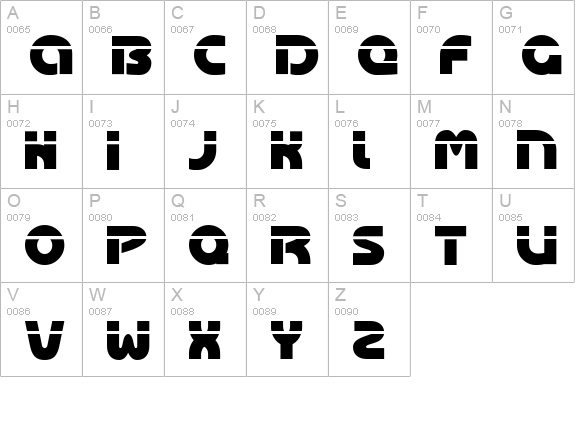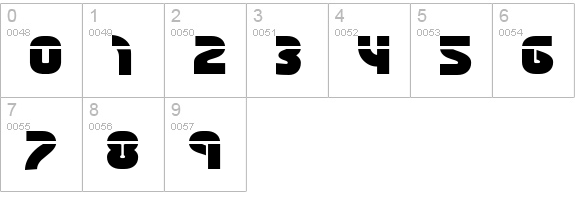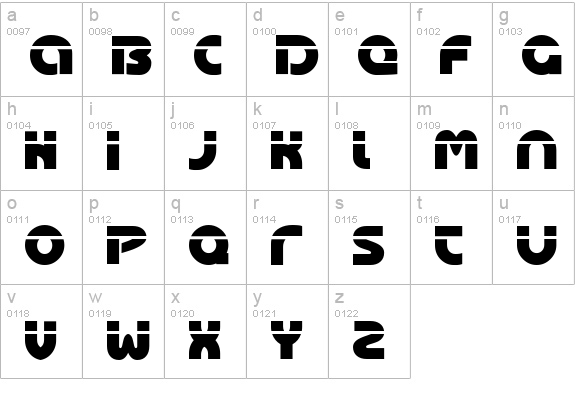
Oasis Font Details
The Oasis font is a modern and stylish typeface that exudes sophistication and elegance. Its sleek lines and contemporary design make it perfect for a wide range of projects, from branding to editorial design. With its versatile style, Oasis can effortlessly elevate any design and give it a touch of class. What's even better is that the Oasis font is completely free to download at FontsMarket.com. That's right, you can get your hands on this stunning font without spending a dime. So why wait? Add a touch of luxury to your designs with the Oasis font today!